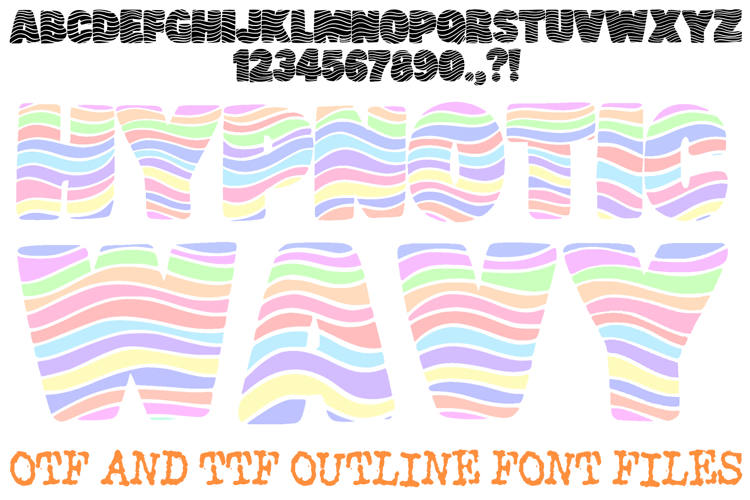
Step into a world of optical intrigue with the Hypnotic Wavy Font! This hand-drawn display alphabet features bold, rounded characters filled with a rhythmic pattern of undulating black and white stripes. The high-contrast, "liquid" movement within each letter creates a vibrating effect that is perfect for psychedelic branding, trippy festival posters, modern streetwear, and avant-garde social media graphics.
Designed to mimic the flow of a digital frequency or a liquid marble texture, the Hypnotic Wavy Font ensures your text is never static. Whether you are designing an album cover for an electronic artist or creating high-impact stickers for a skater brand, this font delivers a sense of constant motion and modern energy.
Why Your Designs Will Vibrate:
Optical Illusion Texture: Every character is packed with flowing, horizontal wave patterns that create a stunning "shimmer" effect.
Bold Rounded Silhouettes: The thick, soft edges of the letters balance the sharp contrast of the internal stripes for a cohesive look.
Rhythmic Consistency: The wave patterns are designed to flow seamlessly from one letter to the next, creating a unified "pulse" across your words.